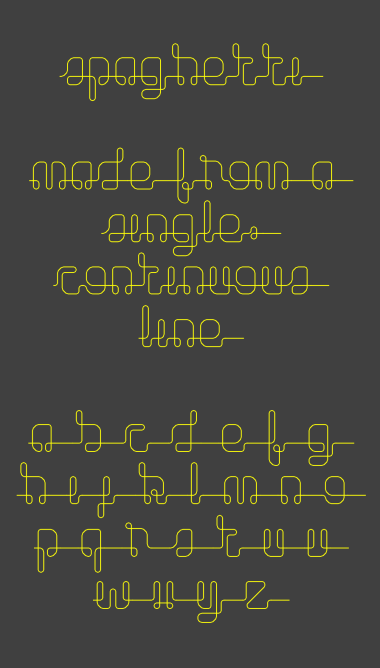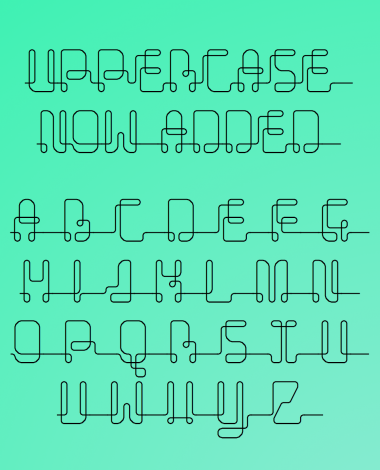
Truly gorgeous, I love how everything flows together with a look of a neon sign! 10/10+fav
Great!!
This is truly awesome.
And its awesomosity would have gone unnoticed if not for the sample.
Everyone should do a sample if their fonts.
Great work. I hope you find time to keep going with numbers and basic punctuation.
thanks, i've added numbers and some punctuation, perhaps i'll try to add more.
DELICIOSO!
Congratulations! FontStruct Staff have deemed your FontStruction worthy of special mention. “spaghetti” is now a Top Pick.
Excellent font and the samples really show the possibilities of it!
I love this , great idea
Those letters really look like spaghetti...
Gud job n great vision